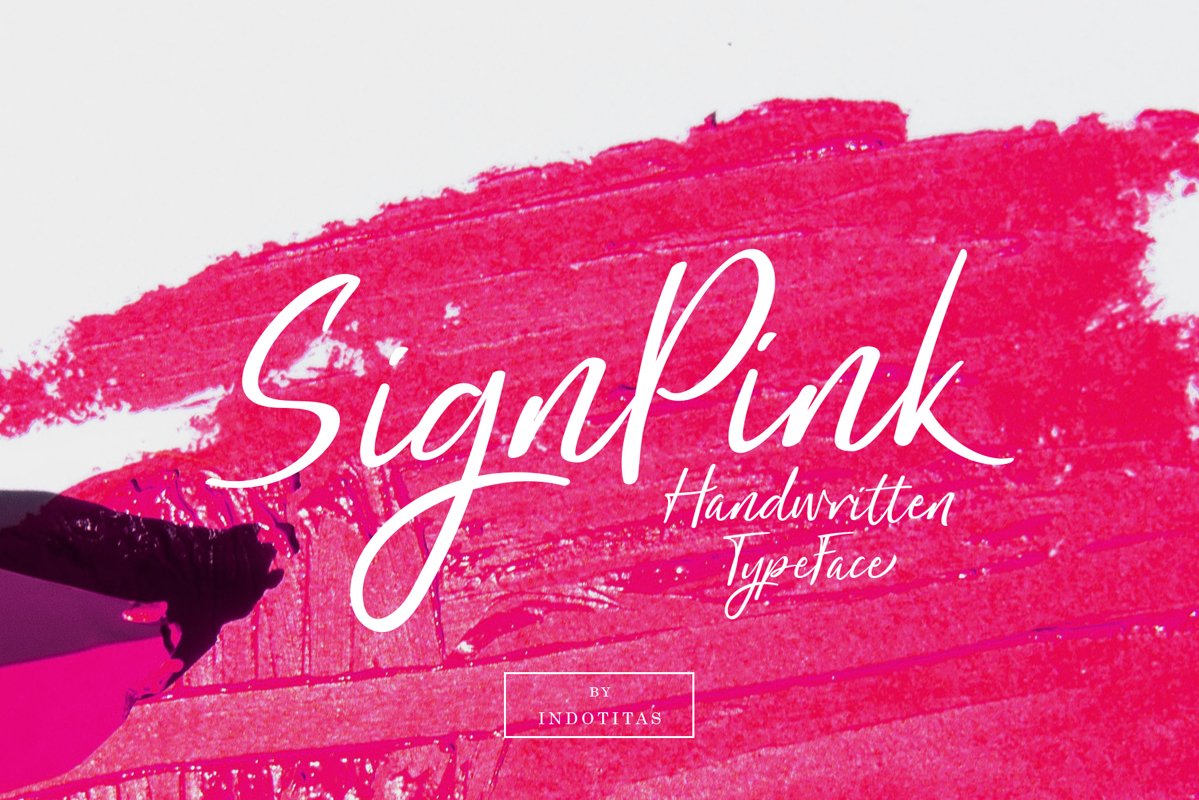
SignPink
Introducing of our new product **SignPink Handwritten Typeface**
Inspired by modern and stylish handwritten, perfect for many different project such as logos & branding, invitation, stationery, wedding designs, social media posts, advertisements, product packaging, product designs, label, photography, watermark
**FEATURES :**
- Basic Latin A-Z and a-z
- Number & Punctuation
- 52 Alternates Character
- Extended Latin Character
- Supported with contextual alternates mode
- Opentype Feature
- PUA Encode
- Multingual Support